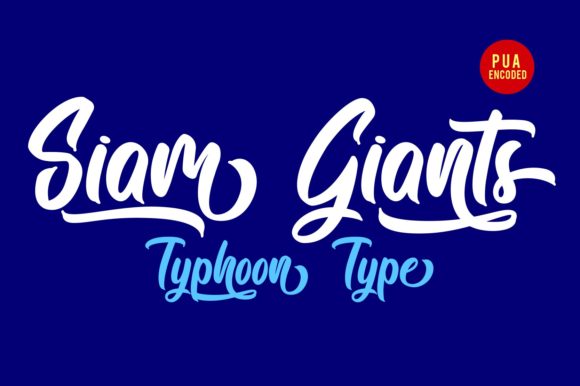
Siam Giants Font
About Siam Giants Font
The Siam Giants is a striking typeface with an elegant style.
It’s perfect for logos, name tags, advertising, product packaging, clothing, social media & greeting cards.